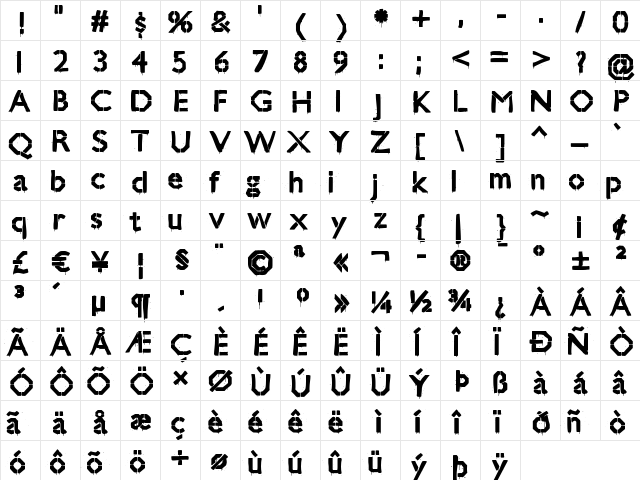
Jillican Warpaint Regular
| Foundry | Typodermic |
Design Context for Jillican Warpaint Typeface
Jillican Warpaint is a composed and adaptable typeface that performs quietly and consistently across a wide range of design contexts.